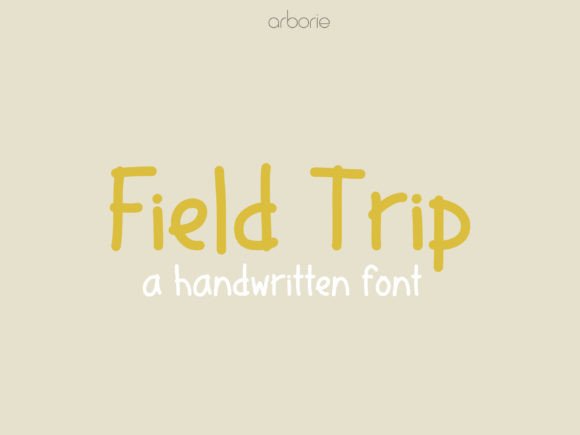
Introducing Field Trip Font, the ultimate choice for those seeking the best fonts for names on Cricut! Created by the talented Arborie, this script font is here to elevate your creative projects to new heights. With its unique handwritten and messy style, Field Trip Font brings a touch of natural and childlike charm to your designs.
Imagine the possibilities that await as you explore the world of Field Trip Font. Let your imagination run wild as you unleash the power of this captivating script font. Whether you're designing posters, creating stunning sublimation prints, or organizing your digital planners, Field Trip Font is the perfect companion for all your artistic endeavors.
What sets Field Trip Font apart from the rest is its ability to evoke emotions and tell stories through its distinctive hand-drawn appearance. Every stroke and curve carries a sense of authenticity and creativity, making your designs truly stand out from the crowd. Your audience won't be able to resist the charm of this font, as it effortlessly captures attention and leaves a lasting impression.
With its versatility, Field Trip Font adapts effortlessly to any project or theme. Whether you're aiming for a whimsical and playful vibe or a nostalgic and vintage aesthetic, this font has got you covered. Its flexible nature allows you to effortlessly switch between different moods, ensuring that your designs always hit the mark.
But that's not all! Field Trip Font also boasts a wide range of characters, allowing you to add that extra personal touch to your creations. From elegant swashes to unique ligatures, this font offers endless possibilities for customization. Stand out from the crowd and let your personality shine through with every letter you type.
In conclusion, Field Trip Font is more than just a font – it's a gateway to a world of creativity and self-expression. Let it inspire you to push boundaries, unleash your imagination, and bring your ideas to life. Whether you're a seasoned designer or just starting your creative journey, this font is the perfect tool to take your projects to the next level.